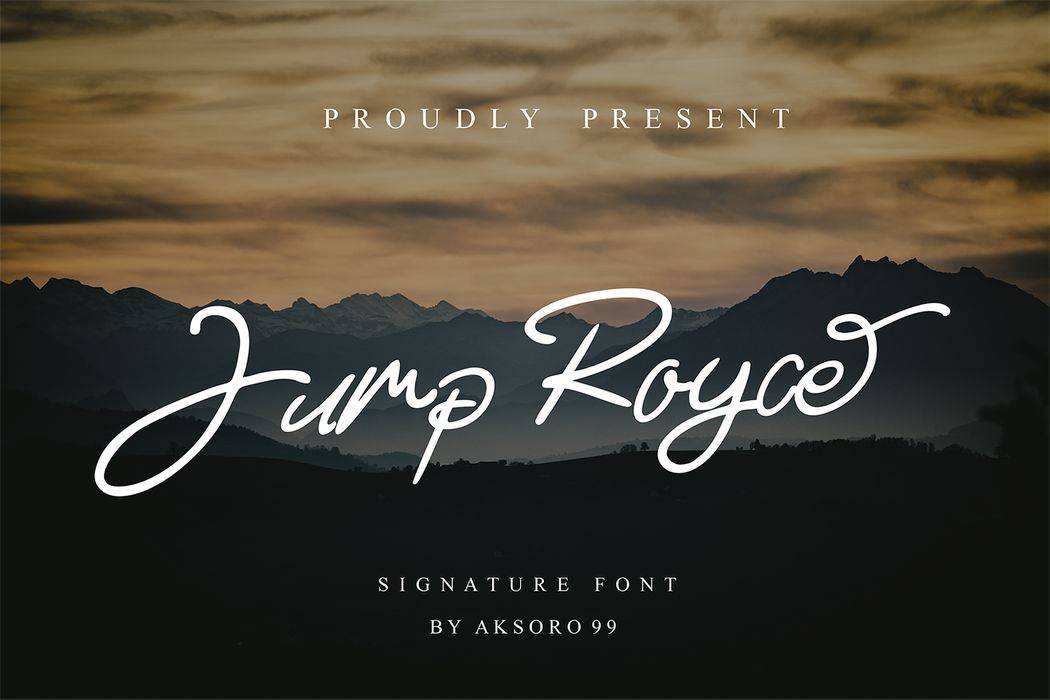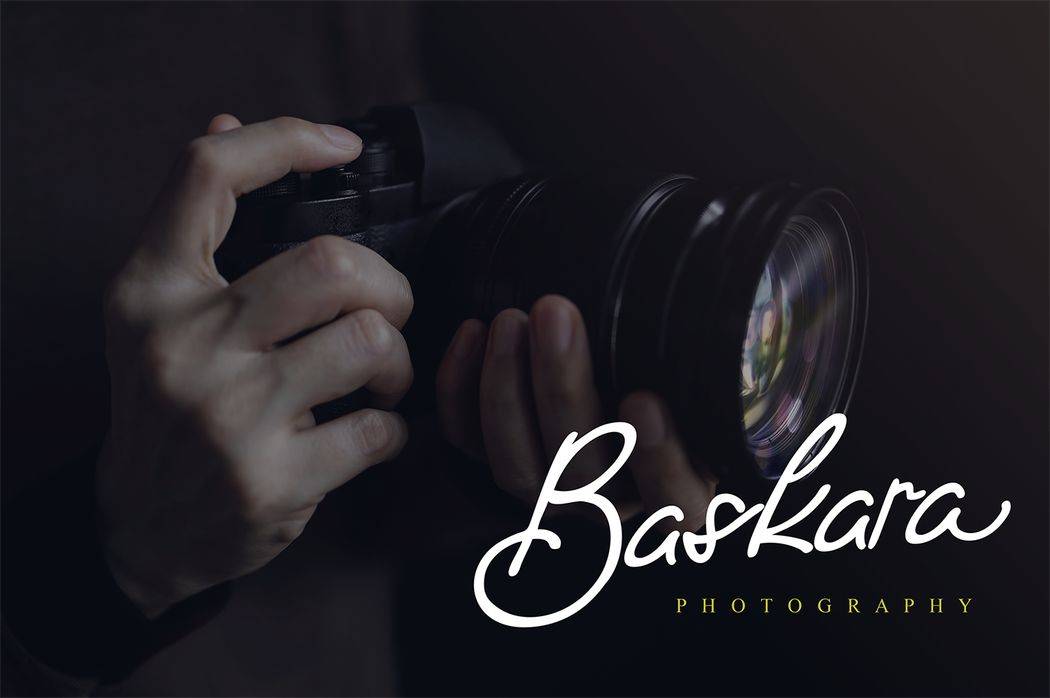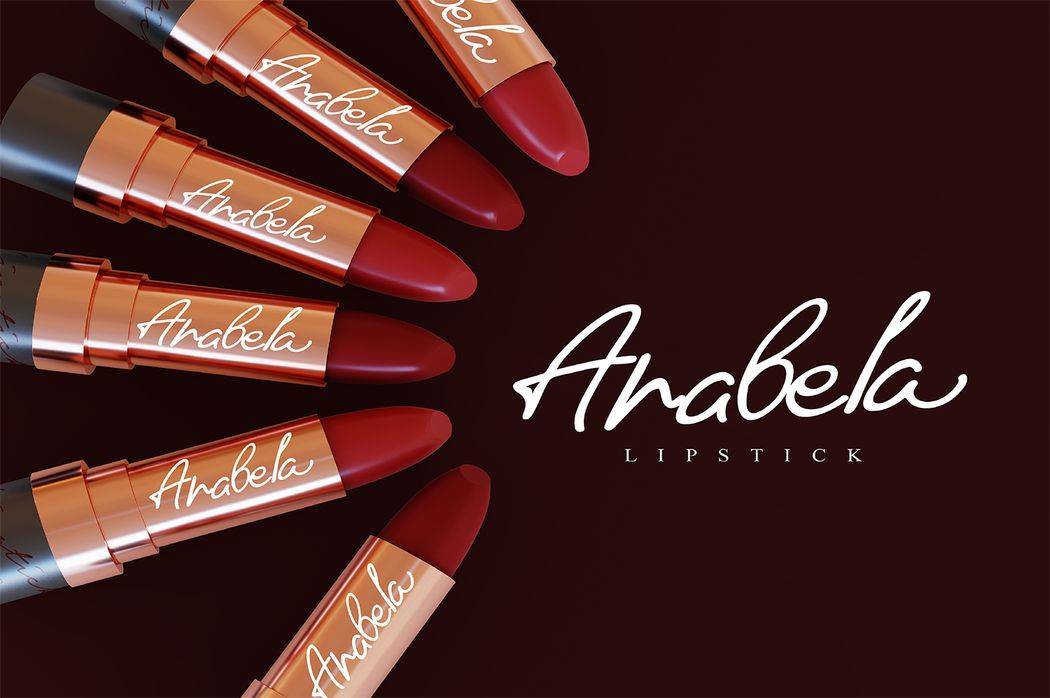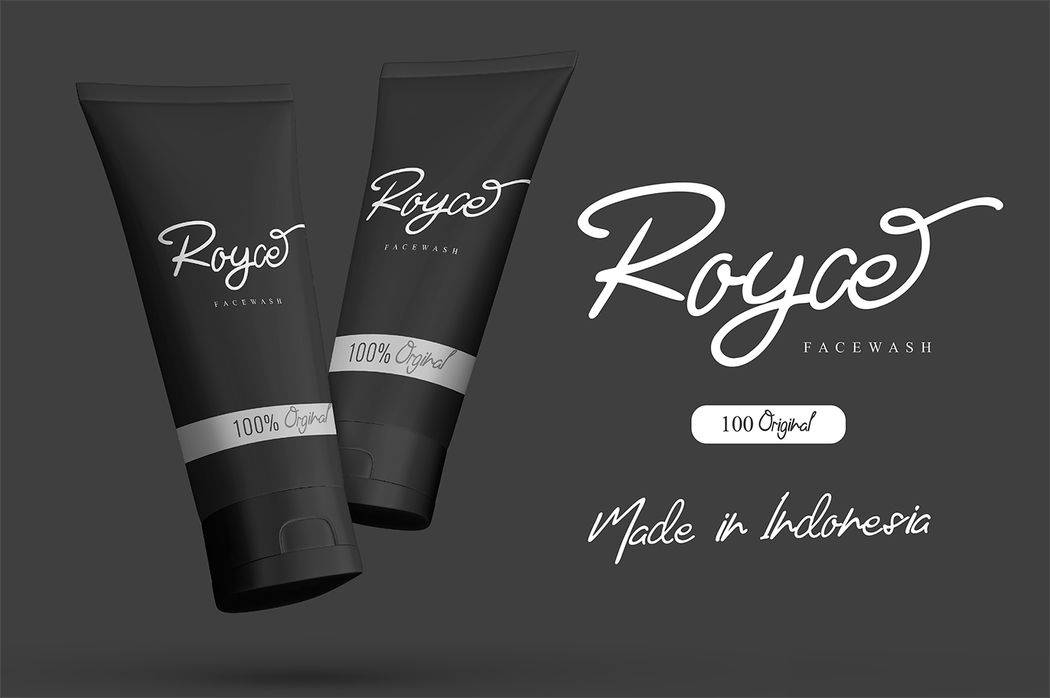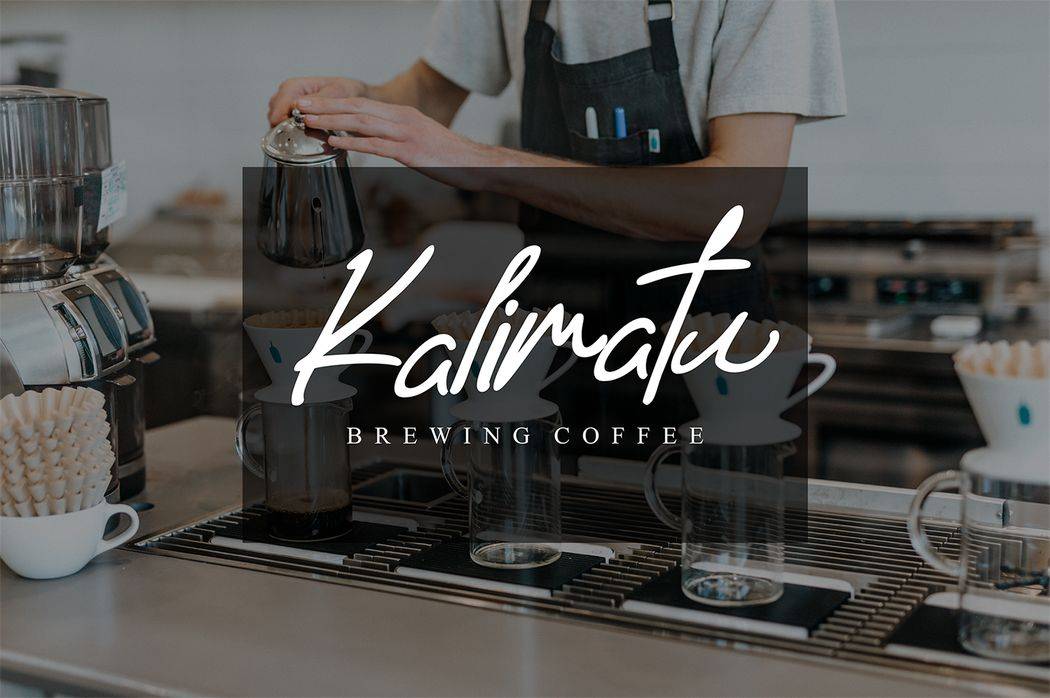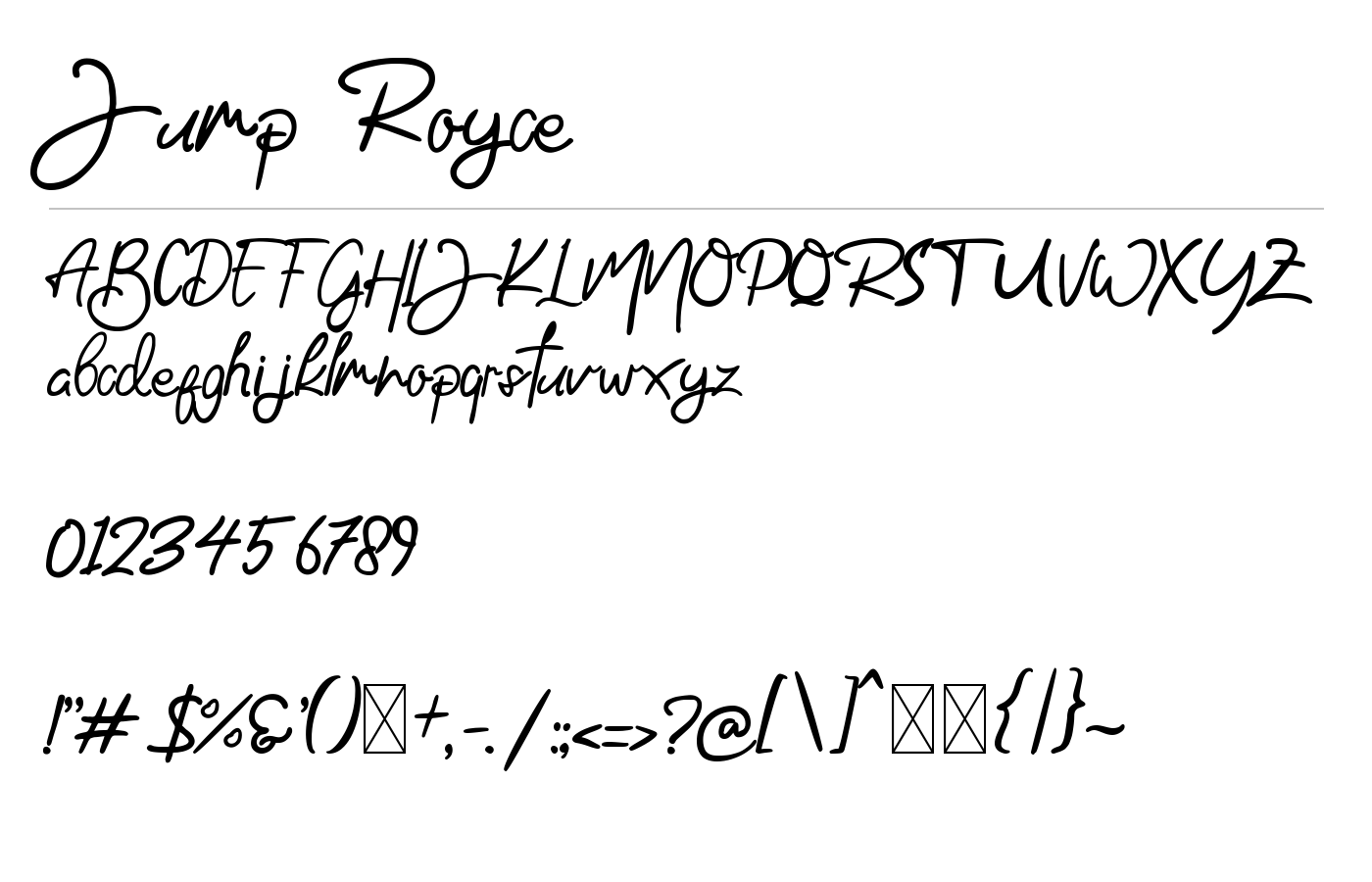
Jump Royce is a playful and casual script font with a hand-drawn feel, featuring smooth, flowing strokes that give it an approachable and personal touch. Its upright, slightly italicized letterforms with unique character shapes work well for creative projects, branding, and invitations where a friendly and informal style is desired. This font is ideal for adding warmth and personality to logos, social media graphics, or any design that benefits from a handwritten, authentic look.
Jump Royce Font
About Jump Royce Font
| Font family | Jump Royce Font |
| Release date | 2021-03-29 |
| Designer | Wahyu Nugroho |